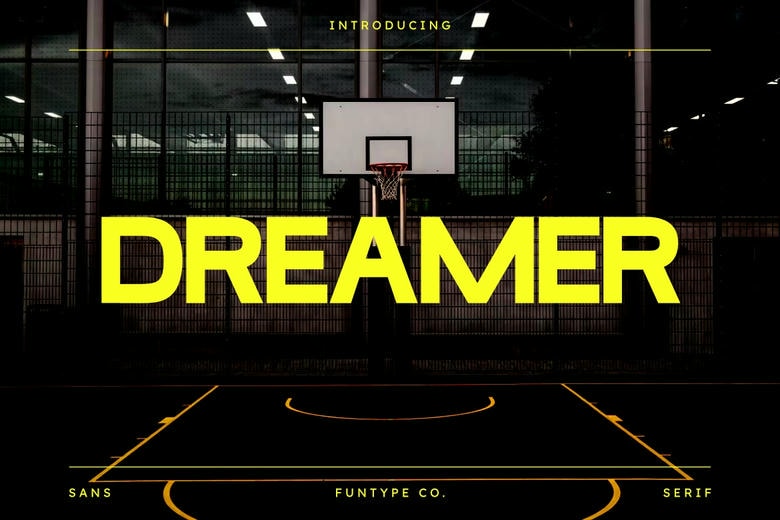
Dreamer Sans Font
Dreamer is a bold and contemporary sans serif typeface that is designed to create bold images and bold messages. It can be used in sports posters, inspirational quotes, apparel design, logos, branding, headlines, esports graphics, and vibrant promotion designs using its sharp structure and assuring letterforms. DREAMER is not afraid to be bold or ambitious, no matter what you are designing, be it digital or print.
Dreamer Sans Serif Font